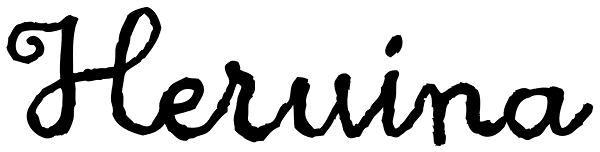
Heruina
Heruina oozes of feminine handwriting...comes with ligatures for both double letters and the most common letter combinations! You will need to use OpenType supporting applications to use the autoligatures
Heruina Font